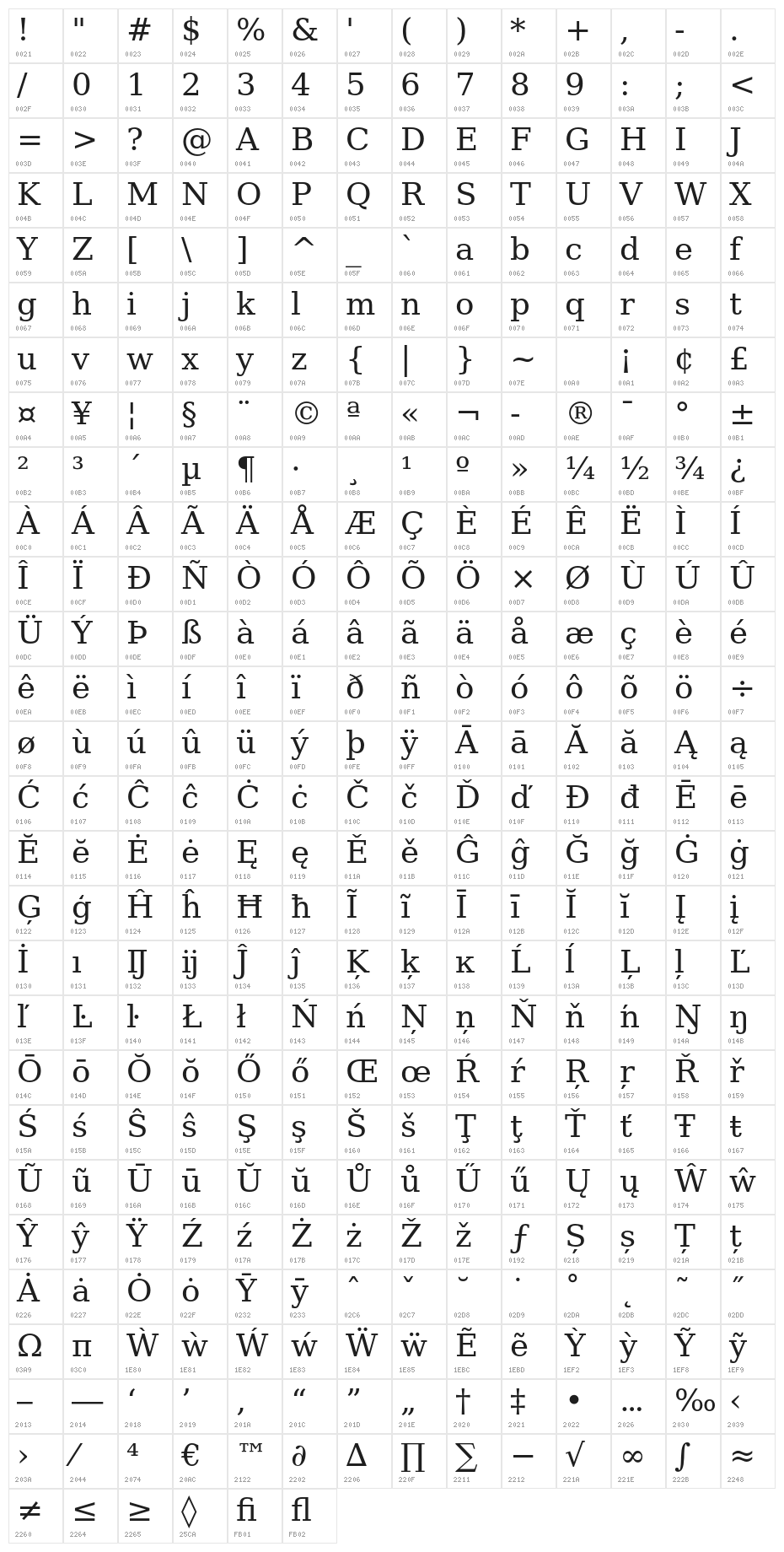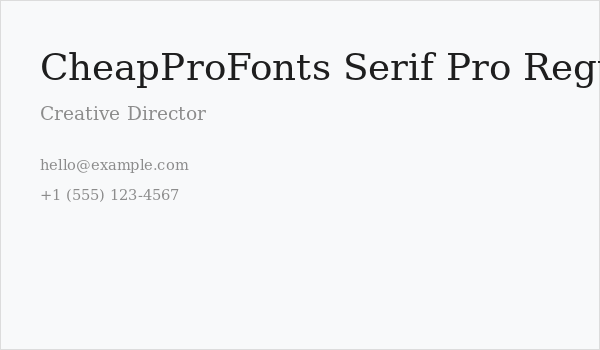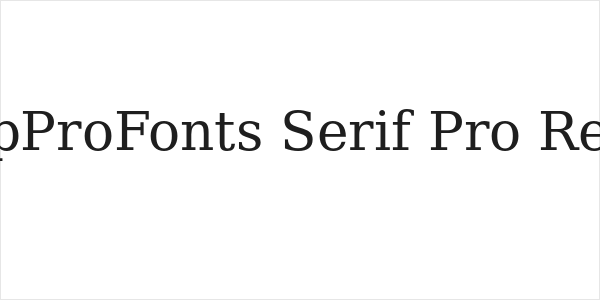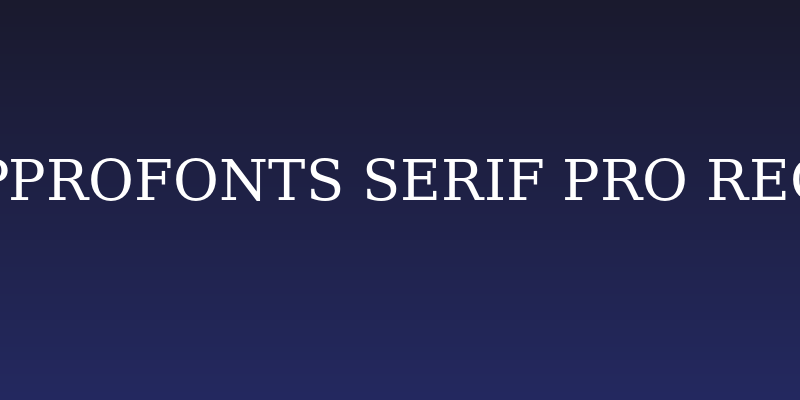
CheapProFonts Serif Pro Regular Font
CheapProFonts Serif Pro Regular Description
This typeface features a classic serif design with clean and precise lines, offering a timeless and professional appearance. The uppercase letters are bold and commanding, while the lowercase letters maintain a balanced and readable form. The numerals are distinct and clear, ensuring legibility in various contexts. Special characters are well-defined, adding versatility to the font's usage. The overall design is elegant and suitable for a wide range of applications, from formal documents to creative projects.
| Use Case | Body text, Headlines, Editorial design |
| Proposed Projects | Ideal for use in formal documents, editorial design, branding, and print media. |